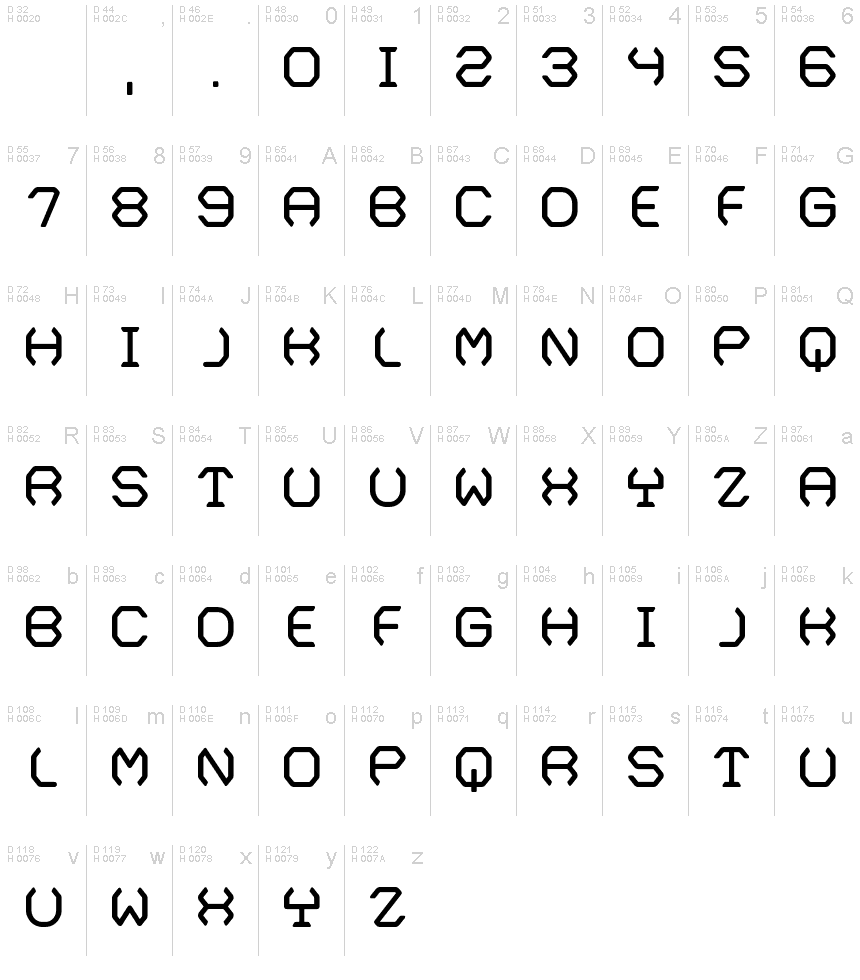
Broughts Regular
Broughts, the techno-inspired display font designed by Vladimir Nikolic, is a must-have for any futuristic project. With its semi-light weight and semi-expanded width, Broughts stands out in headlines, posters and logos. This unique font exudes a sense of modernity and technological advancement that will elevate any design to the next level. Perfect for science fiction book covers, gaming titles or even high-tech product packaging, Broughts is versatile enough to suit a wide range of creative projects. Give your designs an edgy and contemporary twist with Broughts – the semi-light semi-expanded font that demands attention.